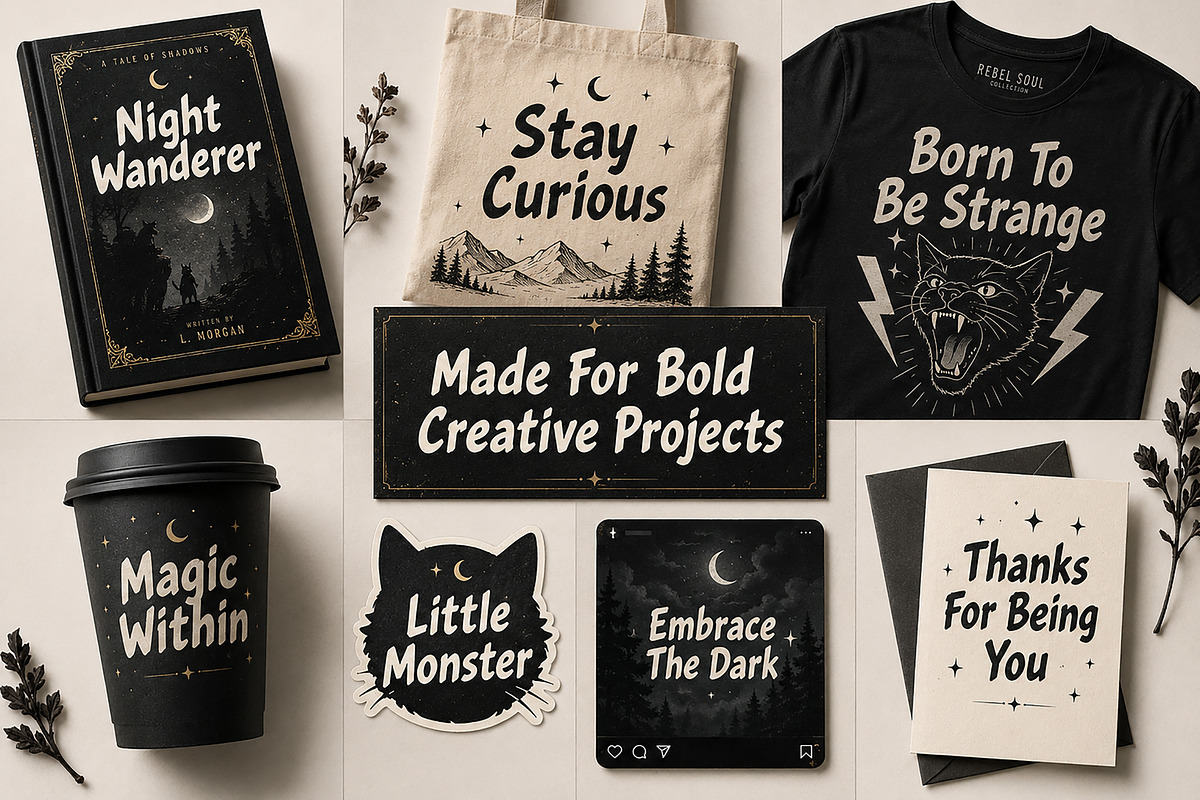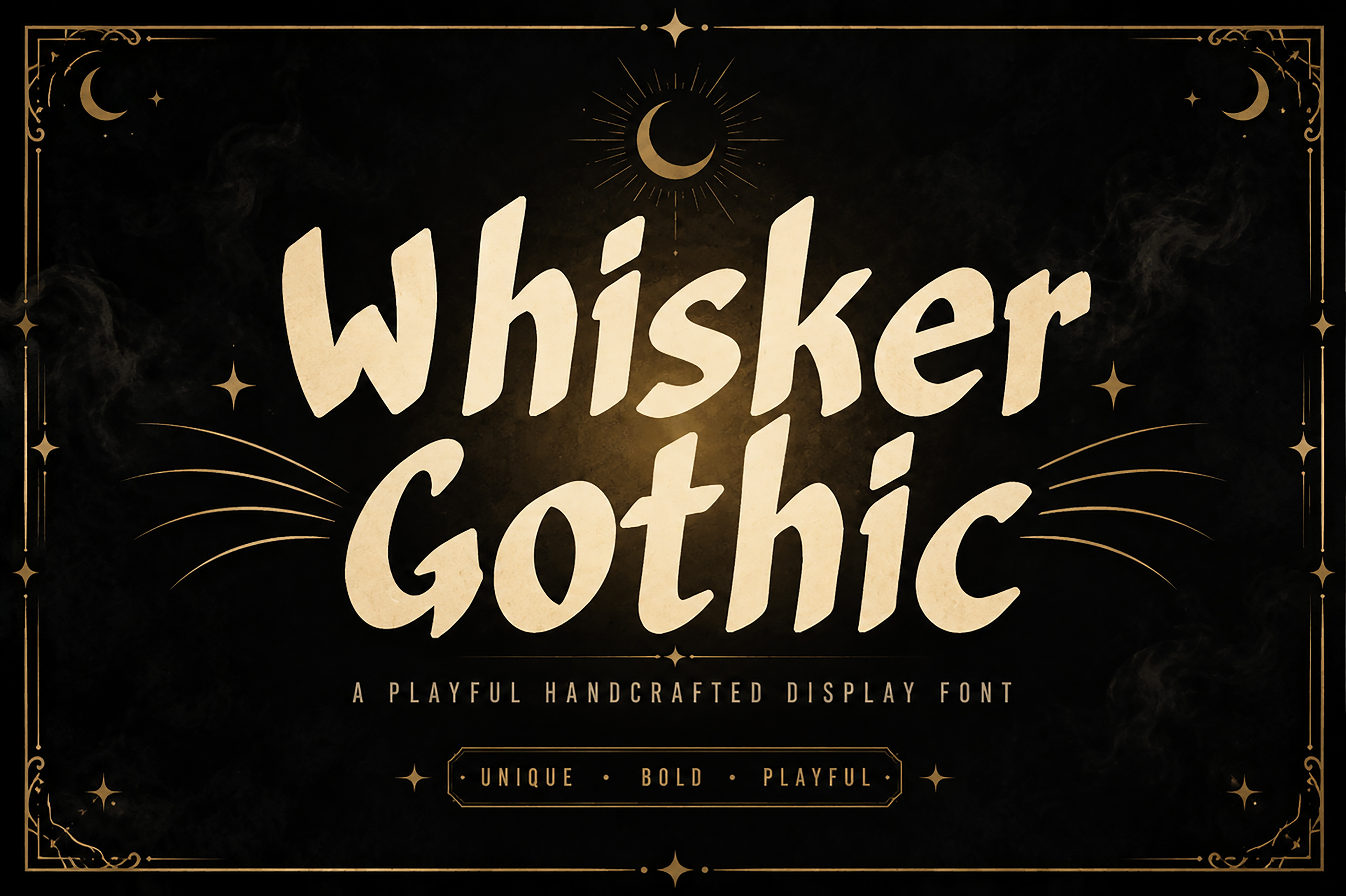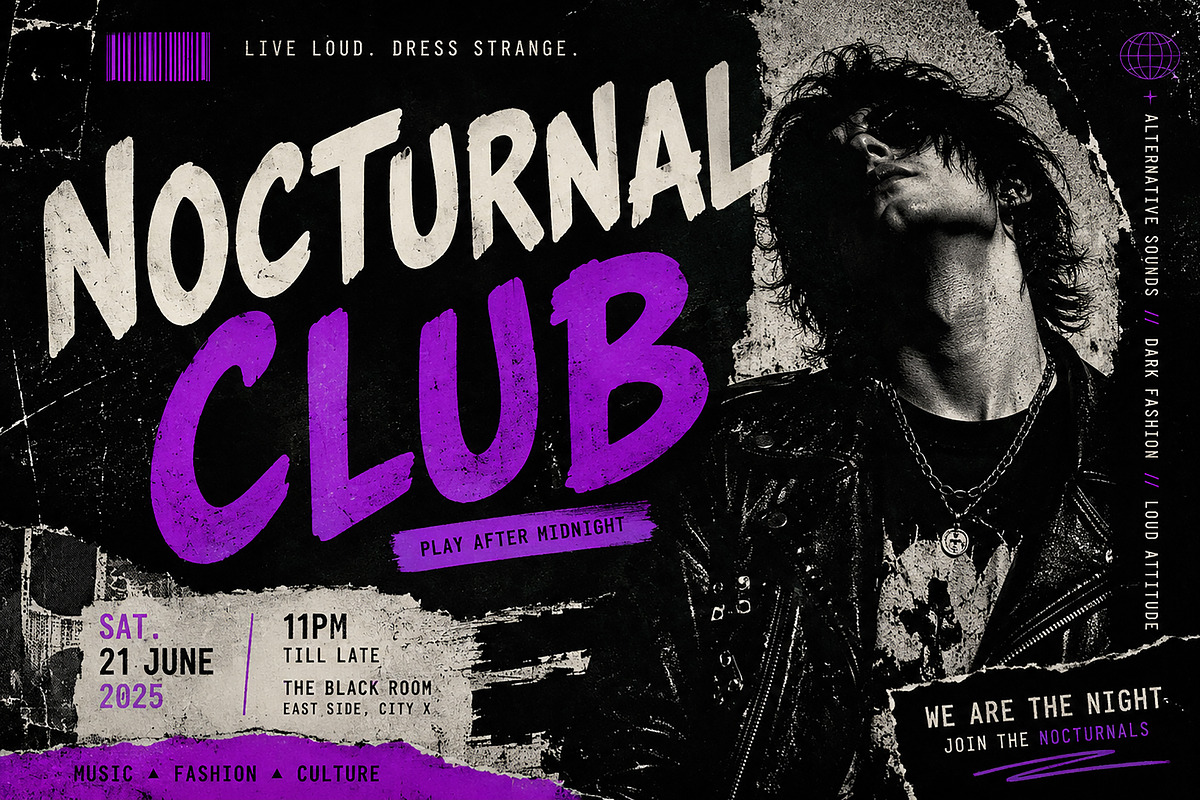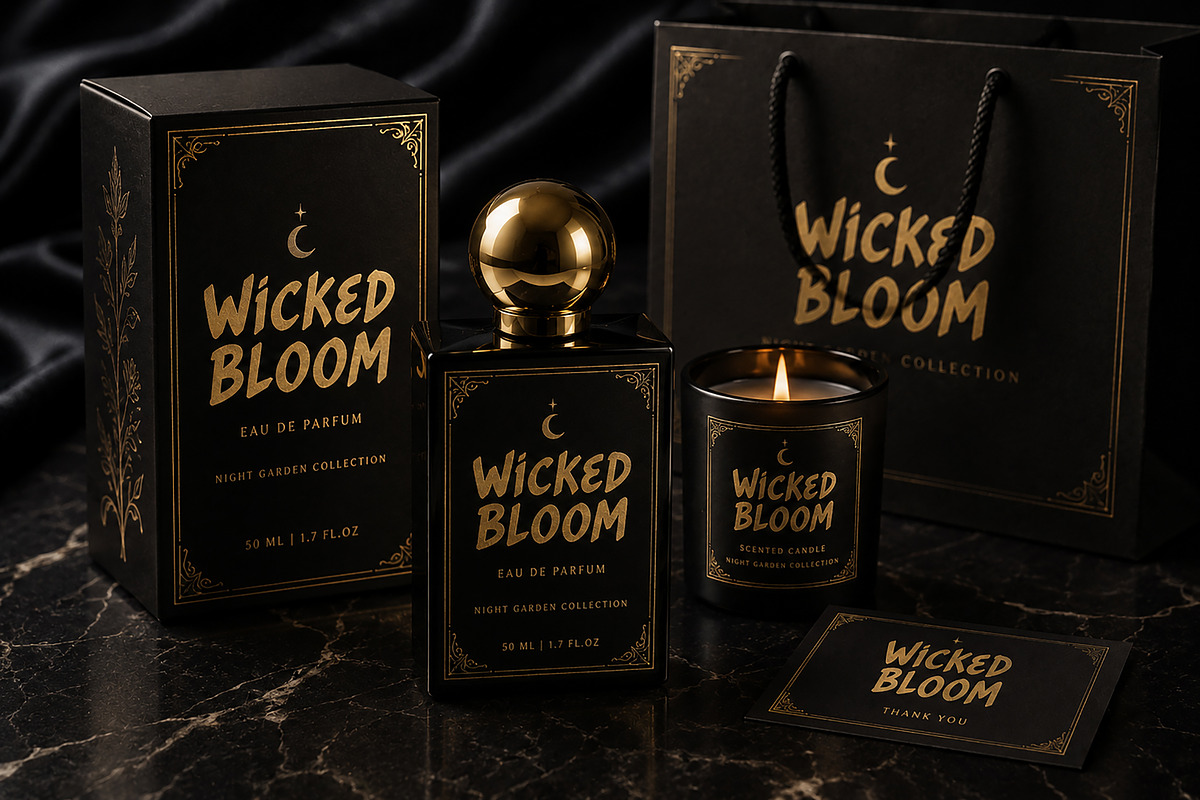
Whisker Gothic-Bold Handcrafted Font
Whisker Gothic
Whisker Gothic is a bold handcrafted display font that blends playful personality with a mysterious gothic-inspired aesthetic. Featuring expressive letterforms, smooth organic curves, and a unique handcrafted feel, this font is designed to make every headline stand out with confidence and character.
Whether you're creating eye-catching branding, spooky seasonal designs, stylish posters, or creative merchandise, Whisker Gothic adds a distinctive artistic touch to every project.
Its bold appearance makes it perfect for designers looking for a font that feels expressive, memorable, and full of personality.
Logos & Branding
Album Covers
Posters
Halloween Designs
Editorial Headlines
Magazine Covers
Fashion Branding
T-Shirt Designs
Tote Bags
Stickers
Packaging
Greeting Cards
YouTube Thumbnails
Café & Boutique Branding
Creative Advertising
Why You'll Love It
Bold handcrafted appearance
Playful gothic-inspired style
Great readability for headlines
Premium branding aesthetic
Perfect for creative and commercial projects